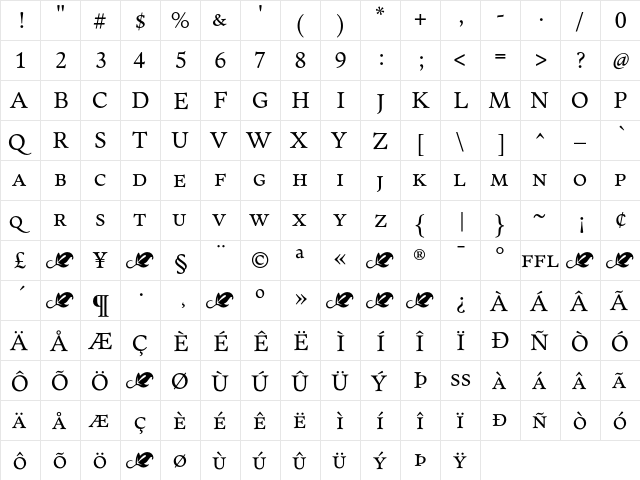
Elmhurst SmallCaps
Design Context for Elmhurst Typeface
Elmhurst takes a measured approach to typography — its balanced proportions and neutral character make it a reliable workhorse for both digital and print work.
Pro Tip: Use Elmhurst in both headline and body roles to test its range before committing to a single application.